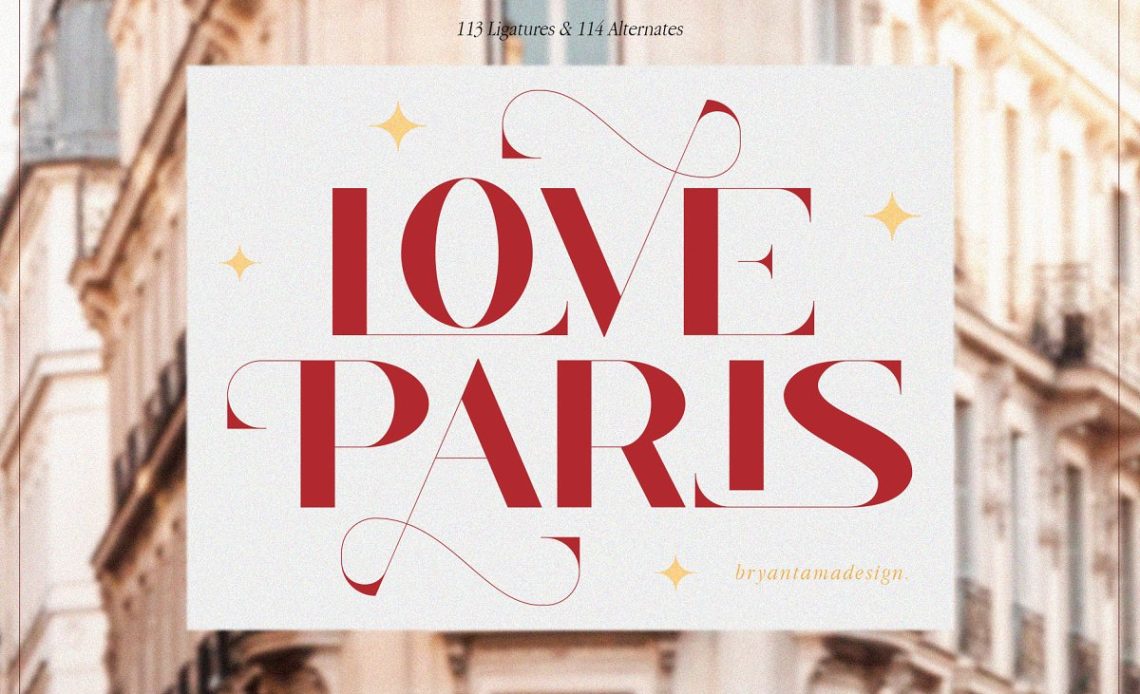
Welcome to the world of Millgary - a luxury and classy typeface that is designed to elevate your designs to new heights. Created by the talented designer, Bryantama Nur Hidayat Suyoto, this font is the perfect addition to your font family. If you are looking for a unique personality and a little modern touch, then Millgary is the font for you.
Inspired by historical architecture in European cities, Millgary has a beautiful ornament style that will give your designs a touch of sophistication. It's a versatile font that can be used for various purposes, including branding, social media, posters, packaging, and much more. With its opentype features, including 114 alternates and 113 ligatures, Millgary offers endless possibilities for your designs.
One of the unique features of Millgary is its ornament font, which is only available for numbers. To use the ornaments, simply type 0-9 in Millgary Ornament. This feature allows you to add an extra touch of elegance to your designs.